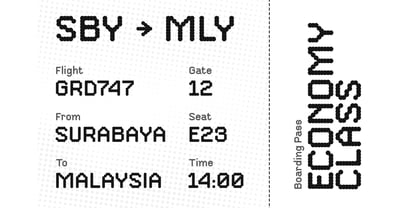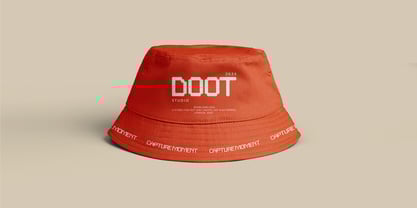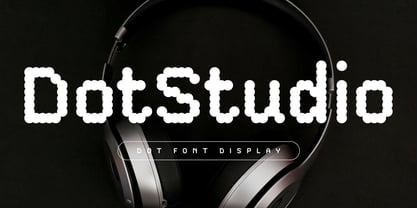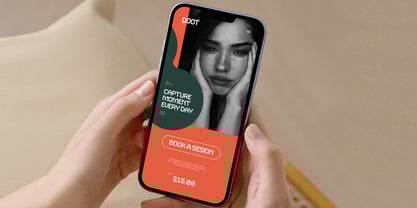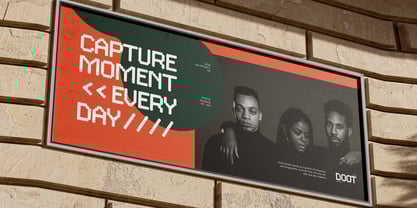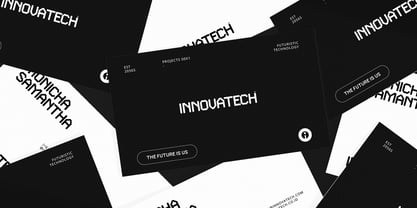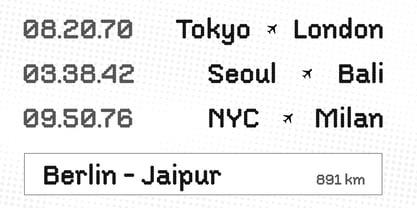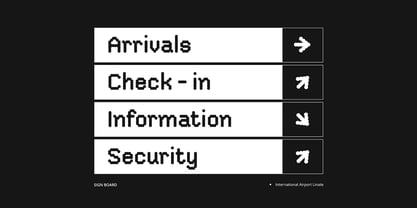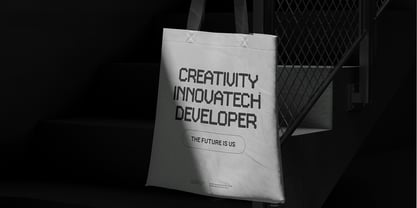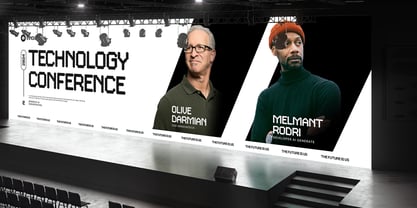
Dot Studio
von Typia Nesia
Die Schriftfamilie Dot Studio wurde von Arief Setyo Wahyudi entworfen und von Typia Nesia veröffentlicht. Dot Studio enthält 1 Stile.
DotStudio - Dot Font Display - Modern Digital Futuristic Innovation Branding
Dotstudio is a modern and eye-catching Dot Font Display typeface, meticulously crafted for striking visual impact across various design applications. Its innovative design makes it perfect for modern digital and print applications, such as modern branding, logo design, headlines, posters, digital displays, and any project requiring a contemporary and futuristic eye-catching font. Crafted with precision and expertise, DotStudio represents a fusion of contemporary design principles and typographic excellence. Its meticulous attention to detail and focus on readability make it a reliable choice for designers.
Designer: Arief Setyo Wahyudi
Herausgeber: Typia Nesia
Foundry: Typia Nesia
Eigentümer des Designs: Typia Nesia